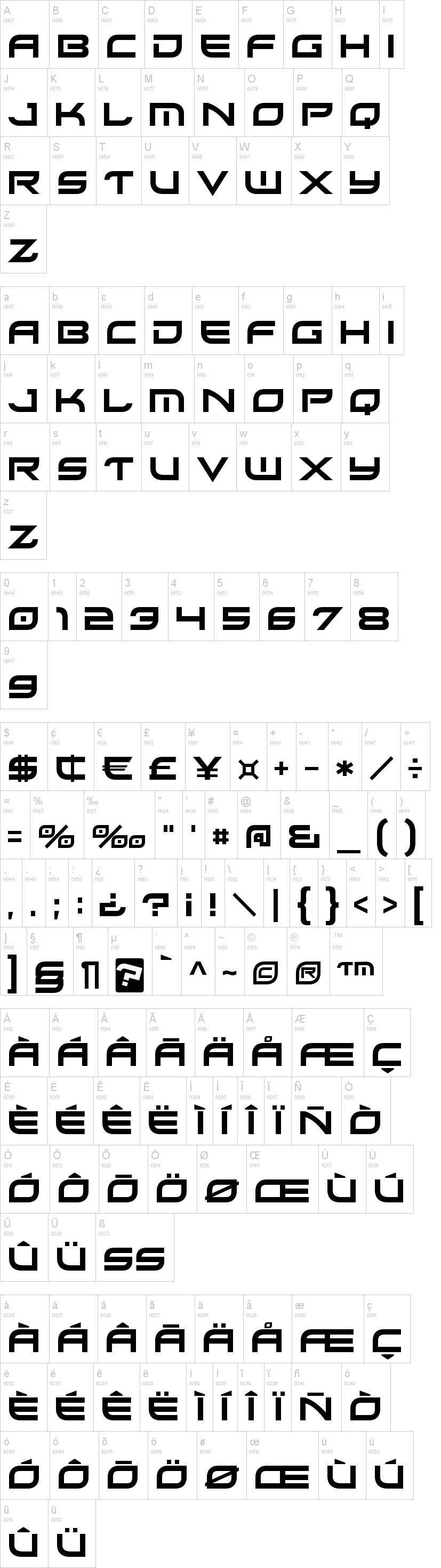
Шрифт Xirod
Xirod is a square, sci-fi techno headline font. In OpenType savvy applications, letters change in order to harmonize with adjacent letters. Strange alternate letters can be accessed using the OpenType "Stylistic Alternates" feature. Don't forget to read the files inside the zip for details. Updated in 2012.